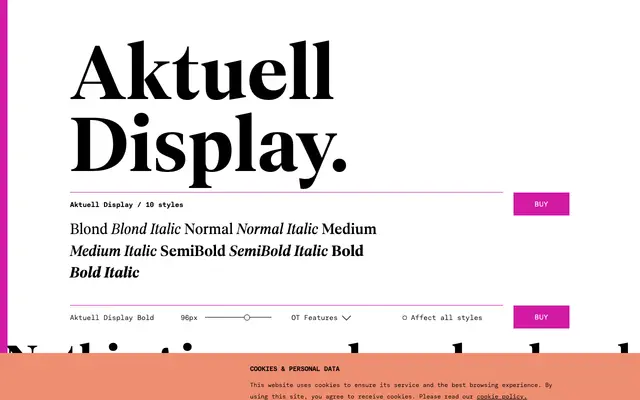
Aktuell Display
A high-contrast display serif by Thomas Thiemich that applies traditional broad-nib modulation to the Aktuell family's existing text design.
Aktuell Display takes the contrast and structure of Thomas Thiemich's Aktuell text design and pushes it into display territory through pronounced broad-nib modulation. The family runs across five weights from Blond to Bold, each with a matching italic, giving ten styles in total. OpenType features include small capitals, oldstyle figures, lining figures, discretionary ligatures and stylistic alternates.
A display-optimised serif with broad-nib contrast, placing it firmly in the high-contrast display serif category. It extends the Aktuell text family into larger-scale typographic applications.